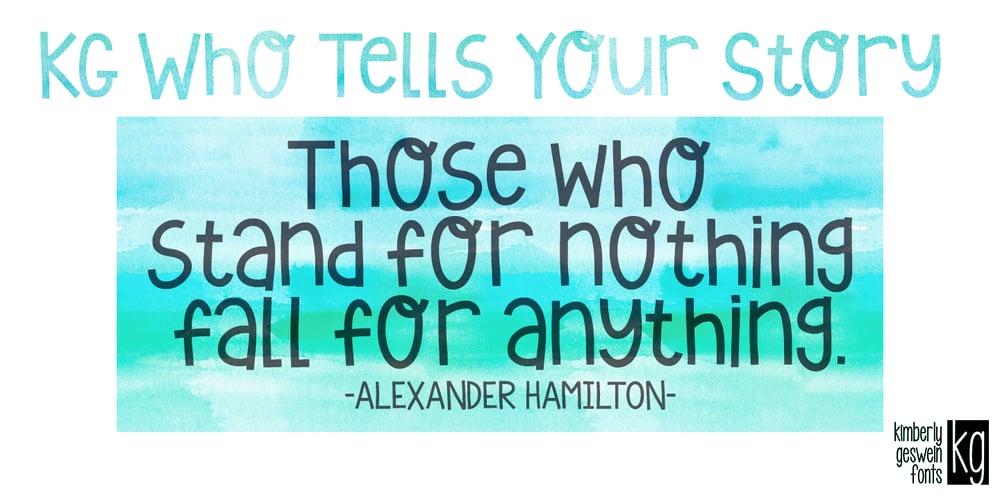
KG Who Tells Your Story
KG Who Tells Your Story font
KG Who Tells Your Story Font Family was designed by Kimberly Geswein and published by Kimberly Geswein. KG Who Tells Your Story contains 1 styles and family package options. A super-fun handwritten display font for titles. Intended to be used as all capital letters together, all lowercase together, or a mix for a super playful look.